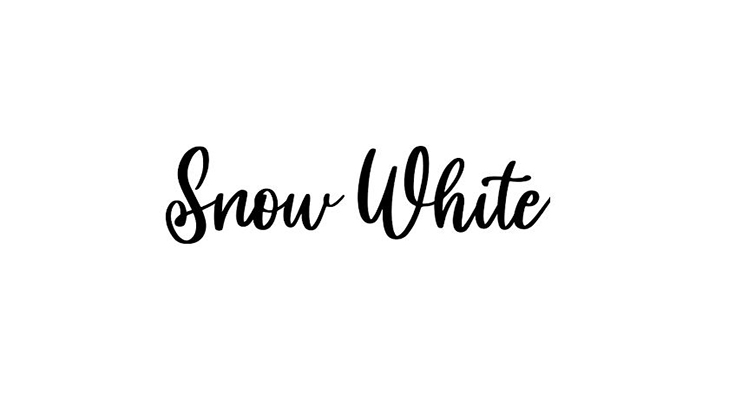
Snow White Font is a modern handwritten signature font that features a beautiful design. It can be perfect for posters, flyers, quotes, and much more.
Its amazing texture has been made with thick strokes and awesome thought. All the texture is handmade which gives natural look throughout the font.
Snow White Font comprises a single style that possesses Open Type features. And includes lots of alternates and ligatures for adding stylistic characters as well.
It can be used as an all-rounder for designing everything from greeting cards to logos, posters, business cards, badges, social media posters, cards, flyers, signatures, product labels, packaging designs, and more.